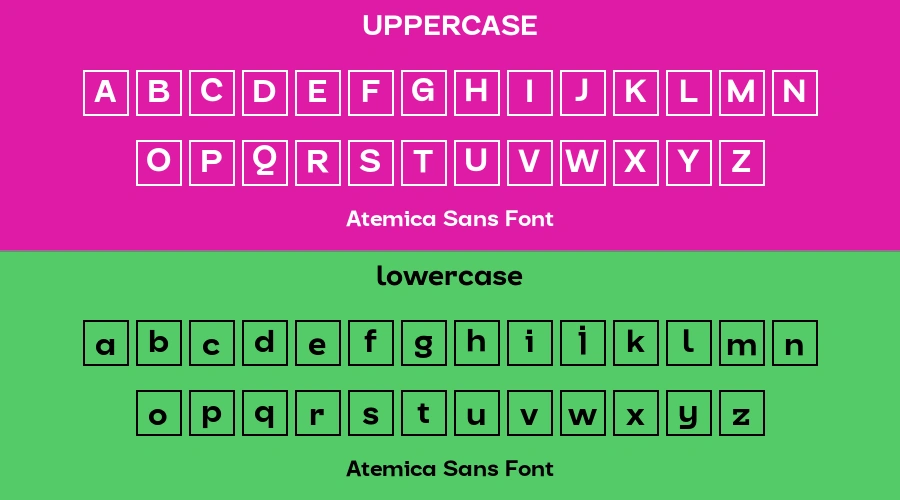
About Atemica Sans Font
When typographic excellence matters most, Atemica Sans Font delivers through its thoughtful blend of rounded corners and aesthetic balance. Specially crafted for magazine layout, it offers the integrity and practical utility required for sophisticated design work. Every detail serves a purpose.
The character set showcases thoughtful details like dynamic forms alongside functional period-specific forms. This proves especially valuable in brand logos, where reproduction fidelity directly influences results. Particular attention was paid to stroke contrast and artistic merit during development.